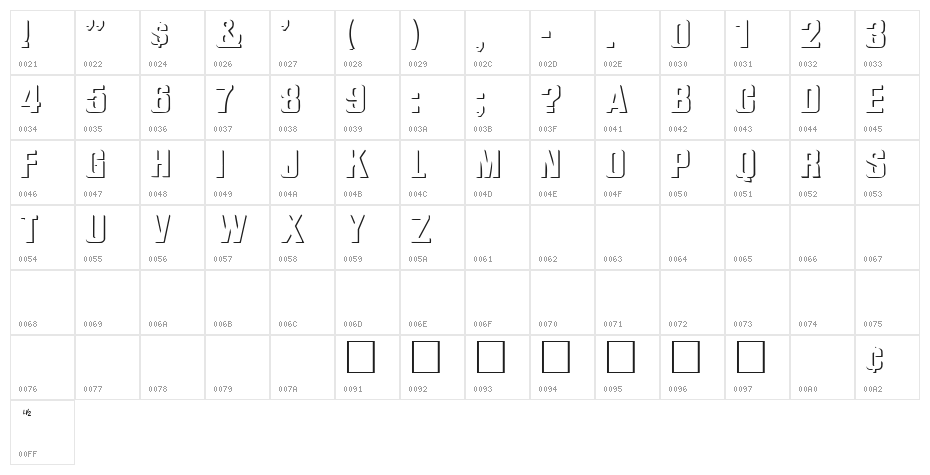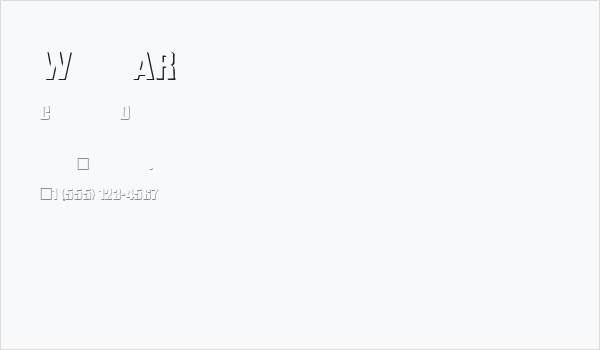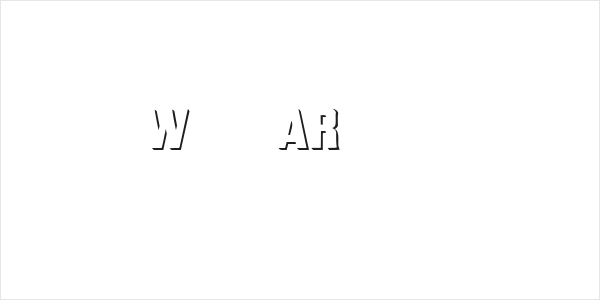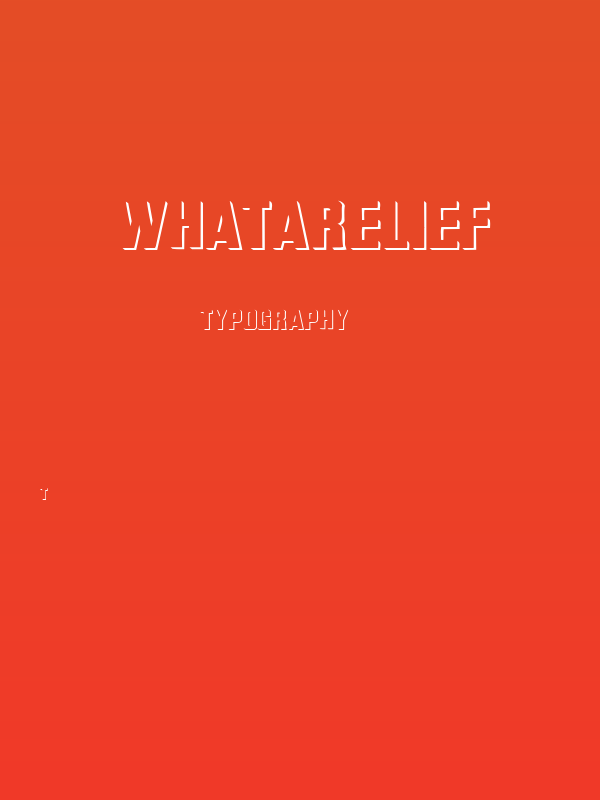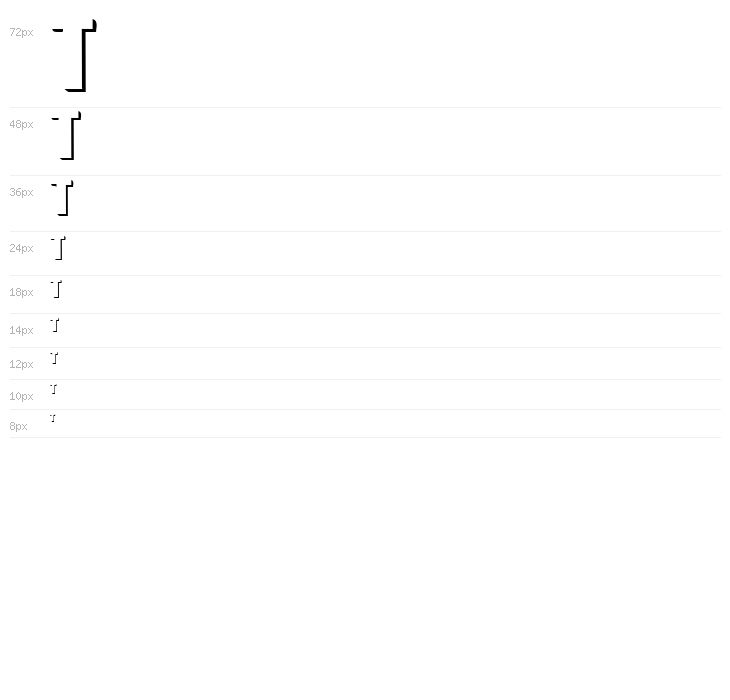
WhatARelief Font
✎ Stencil
WhatARelief Description
This font features a bold, geometric design with a three-dimensional effect that gives the impression of depth and shadow. The characters are uppercase and numerals, with a distinct stencil-like appearance. The lines are clean and sharp, with consistent stroke widths that create a uniform look. The font's style is modern and industrial, making it suitable for projects that require a strong, impactful visual presence. The spacing between characters is normal, ensuring readability while maintaining the bold aesthetic.
| Proposed Projects | This font is perfect for creating eye-catching posters, signage, branding materials, and headlines that need a modern, industrial look. |